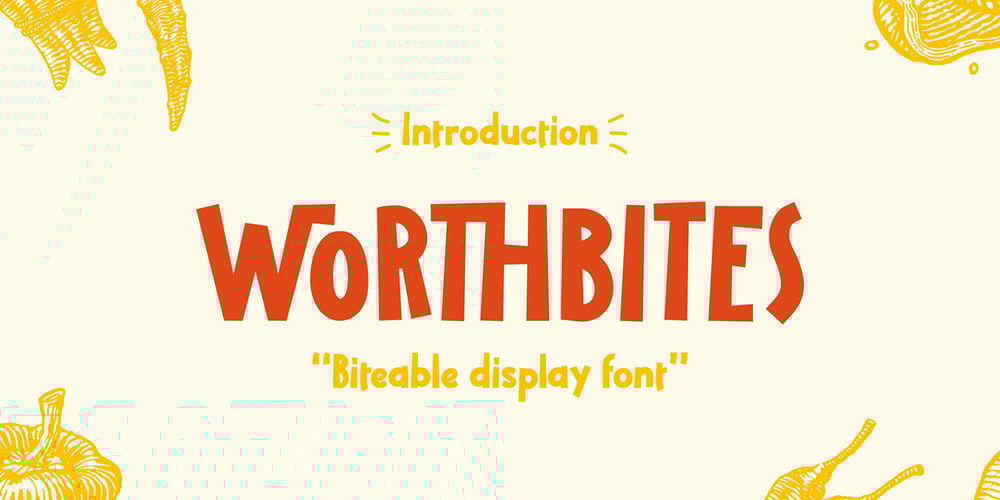
Worthbites
Worthbites font
Worthbites Font Family was designed by Gha Arizal and published by Invasi Studio. Worthbites contains 2 styles and family package options. WORTHBITES is a Biteable, Uneven, Unexpected, and Playful font special for Food Display, that puts a smile on your projects and will inspire you to create something fun and memorable. WORTHBITES will help you to create special and touching typographical designs for fun or childish projects, It is perfect for headings, flyers, greeting cards, product packaging, book cover, printed quotes, logotype, apparel design, album covers.